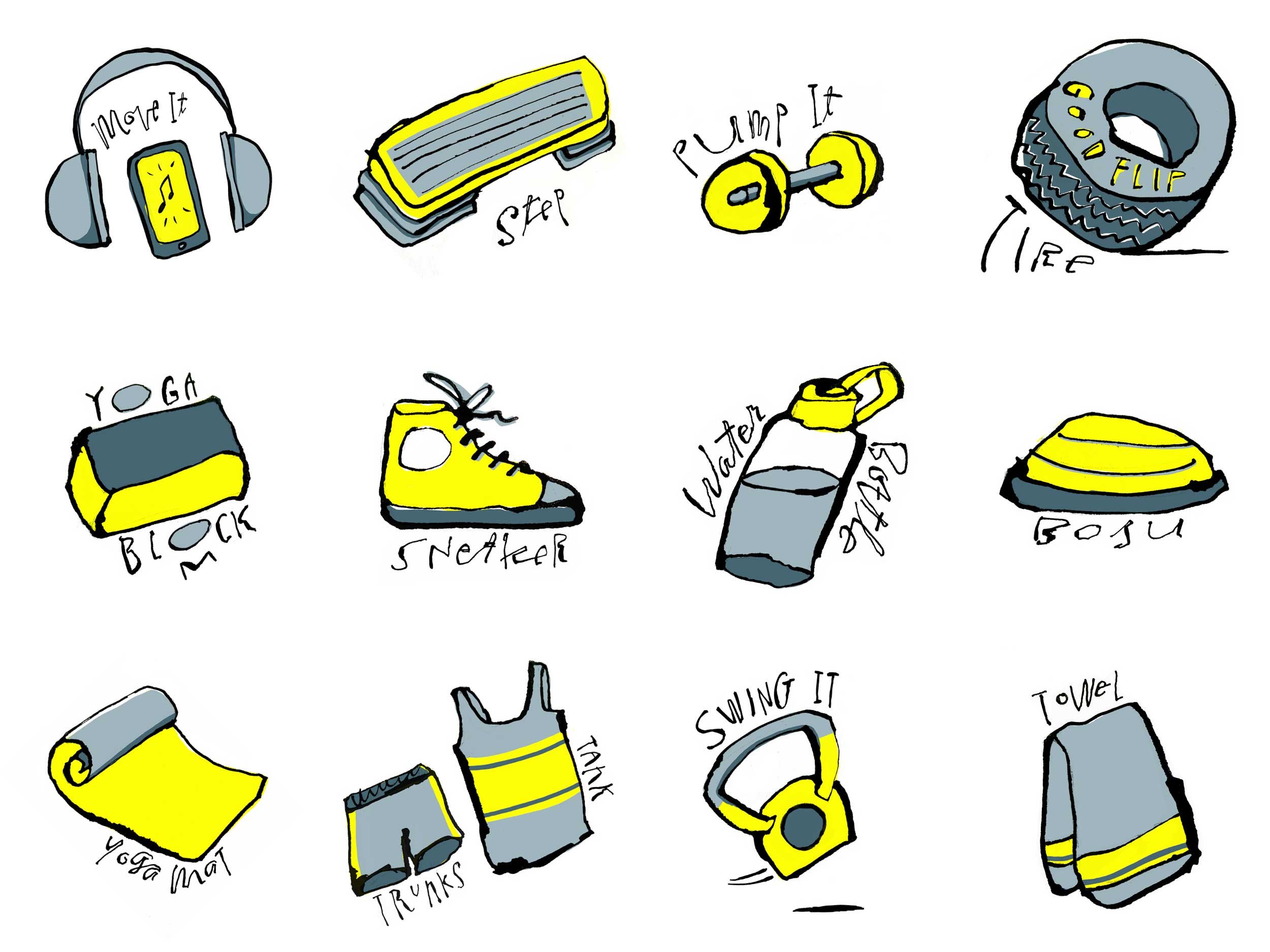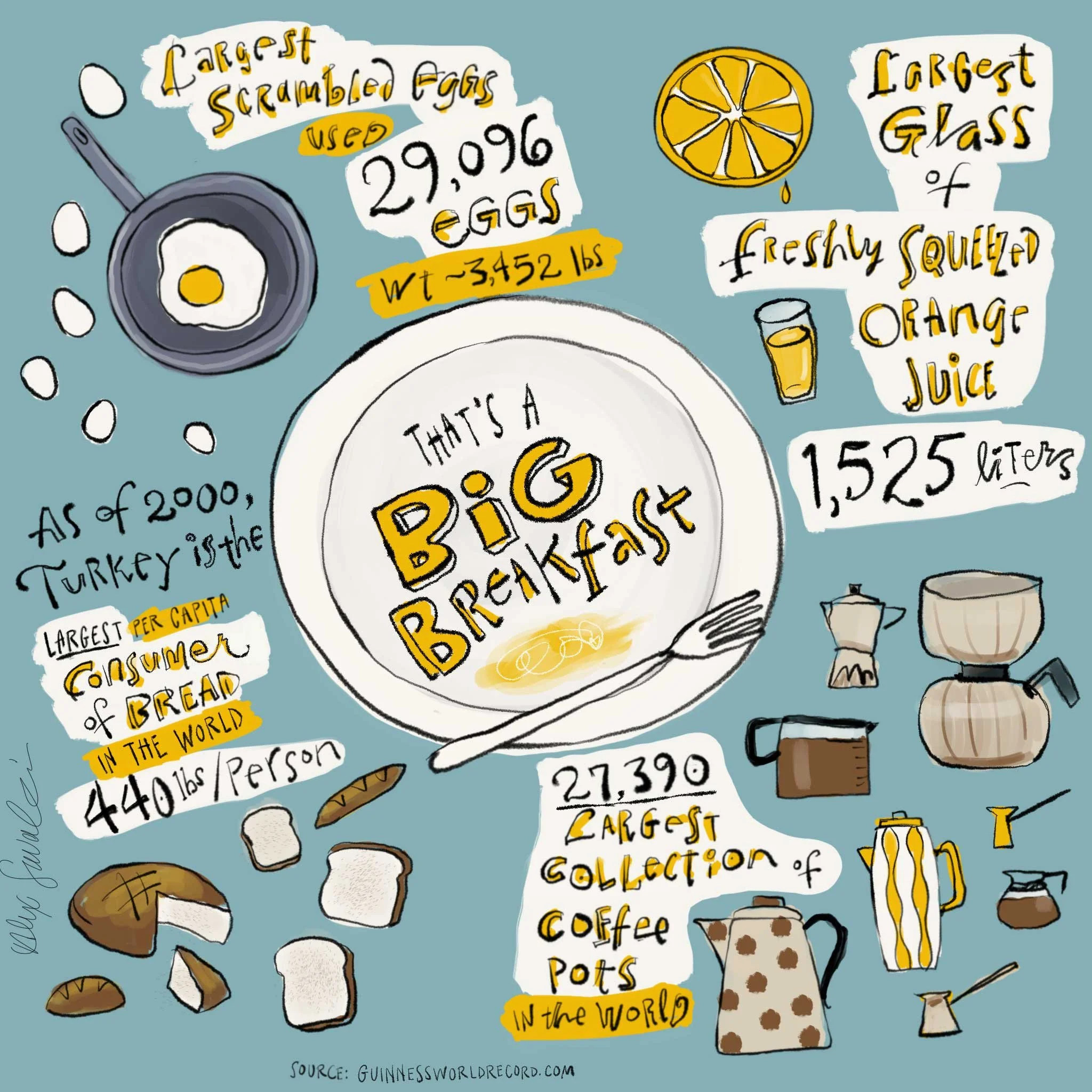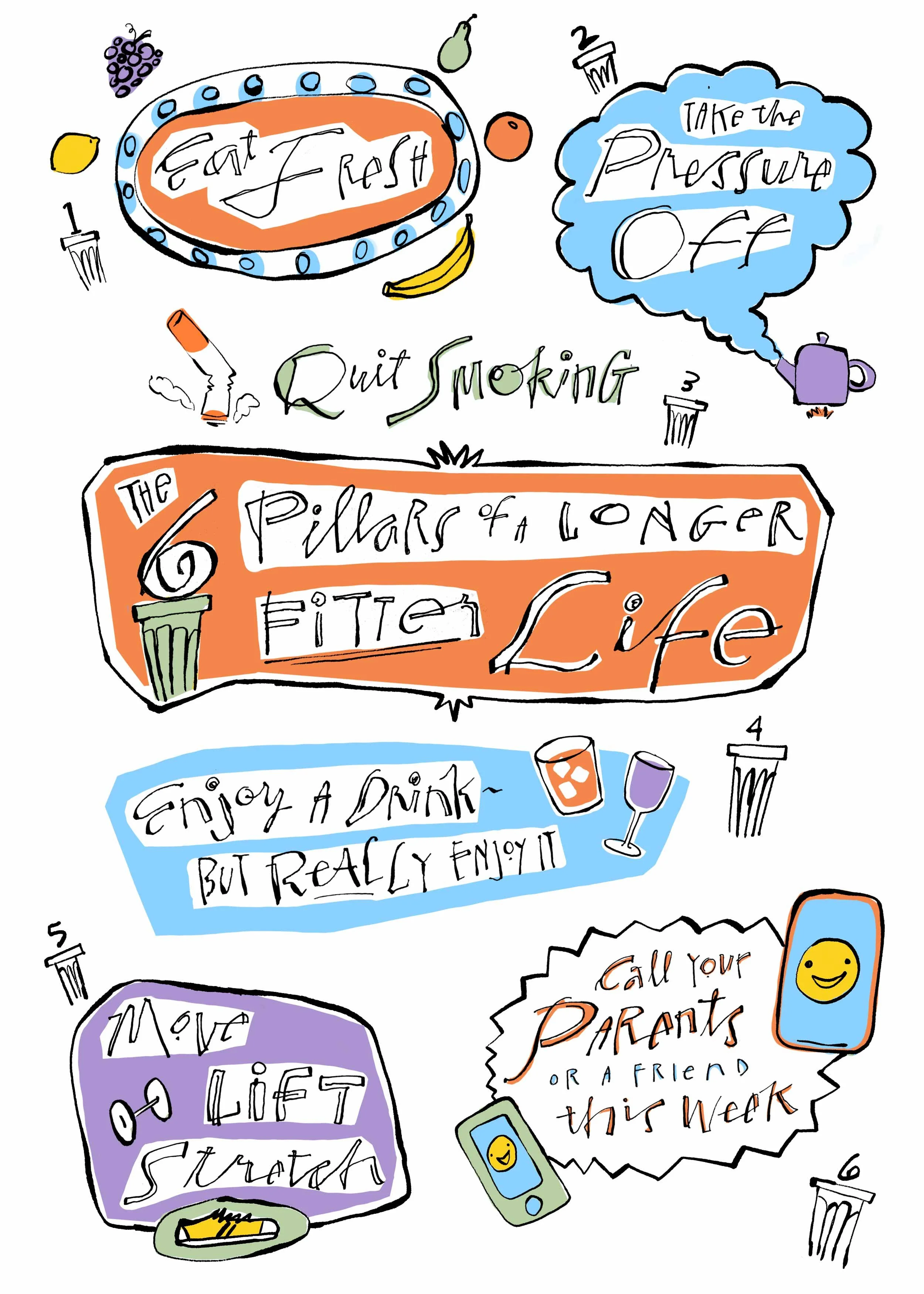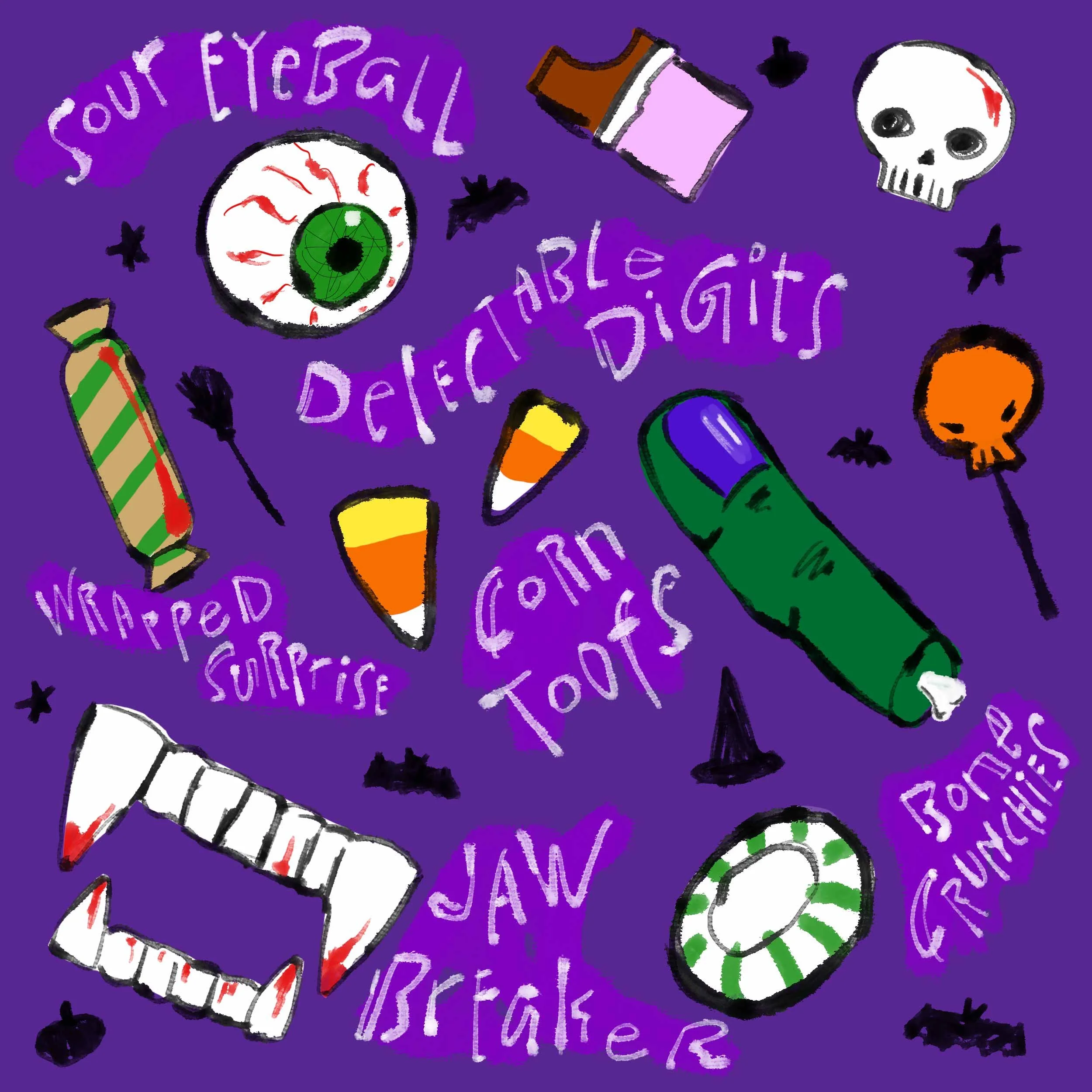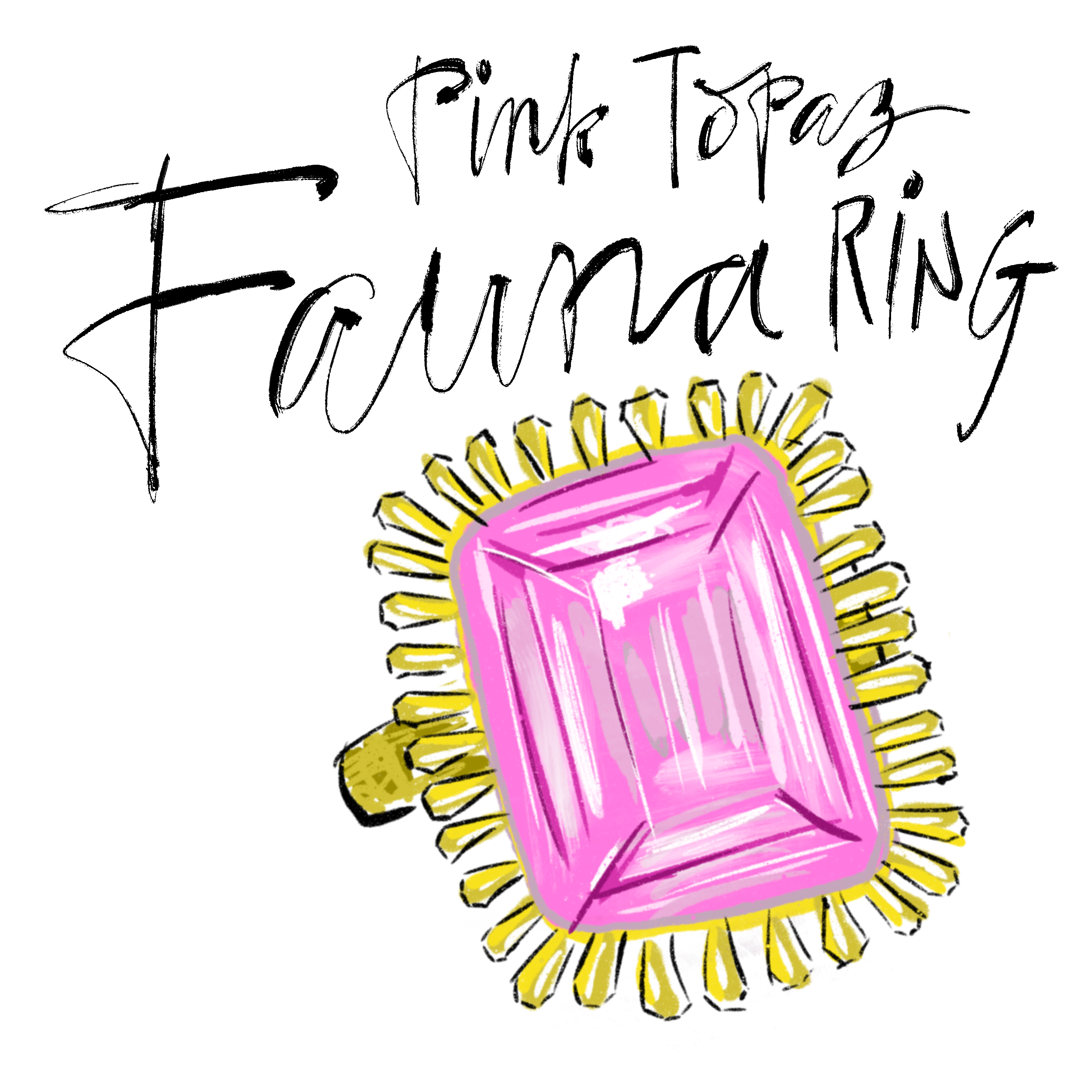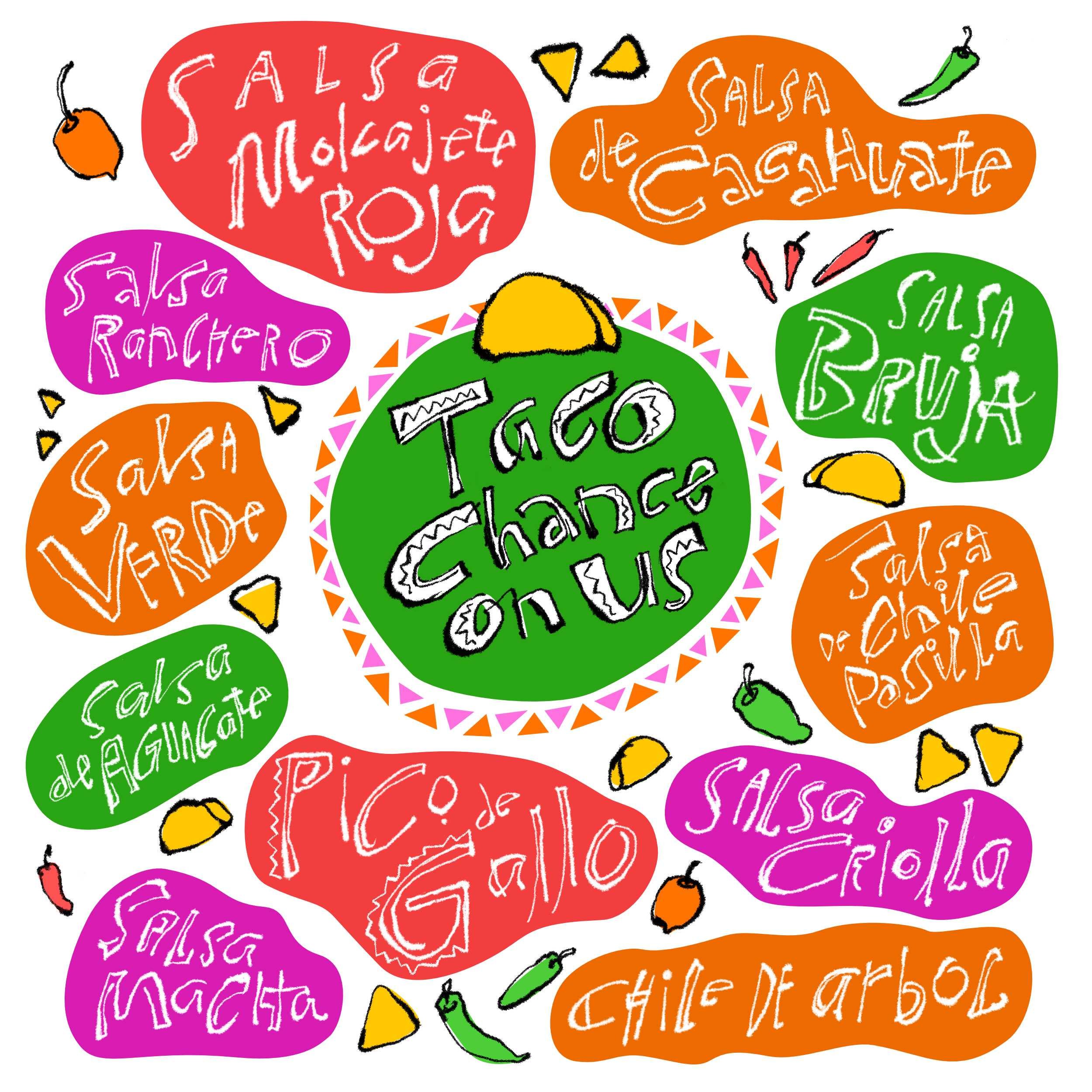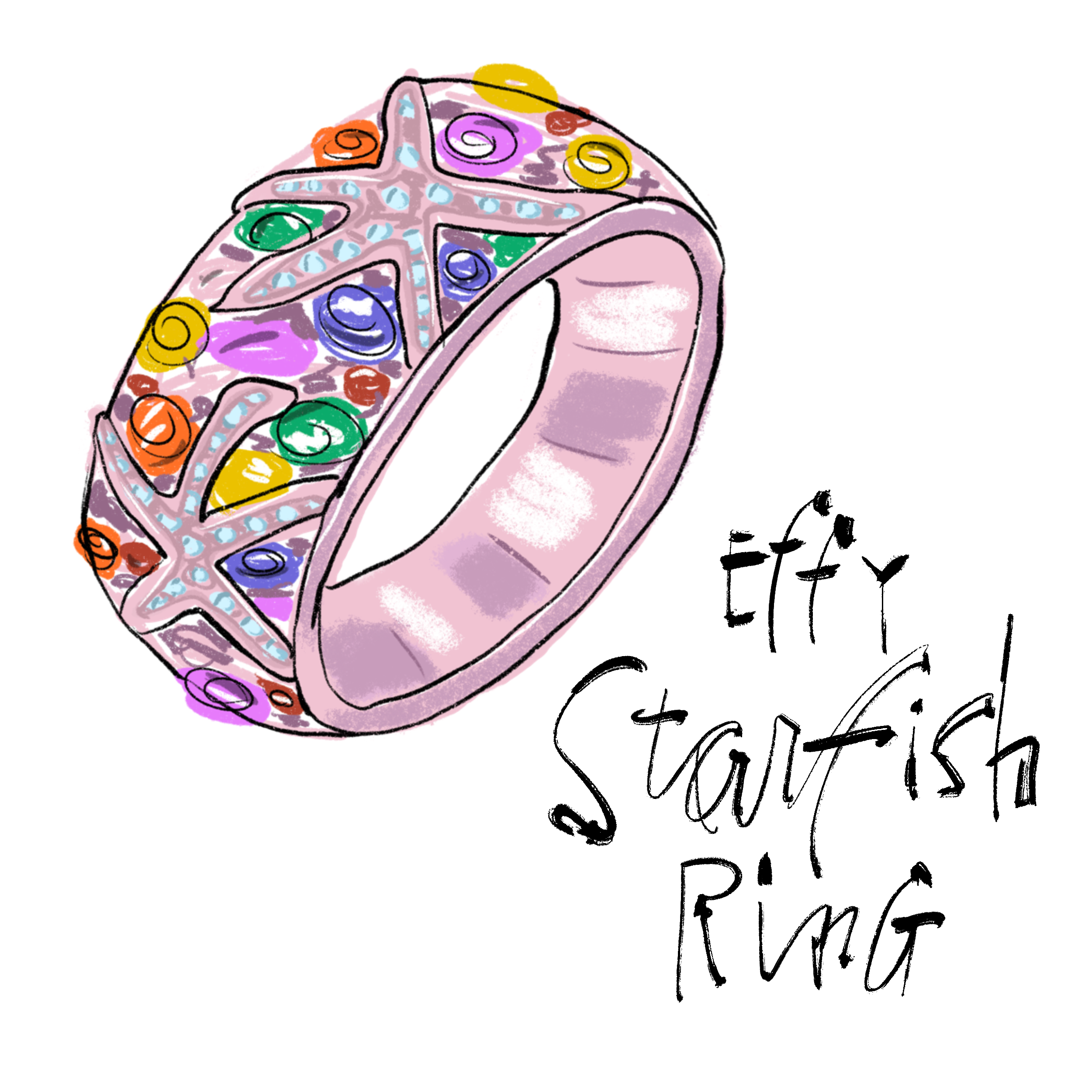
Spot Art And Hand Lettering
Lettering Guy loves to draw spot art. He adds funky hand lettering to his tiny pieces. He uses both traditional and digital tools to create print and script text. He looks online for pictures of vintage signs and combs through random type exemplars and catalogs to fuel his lettering experiments.